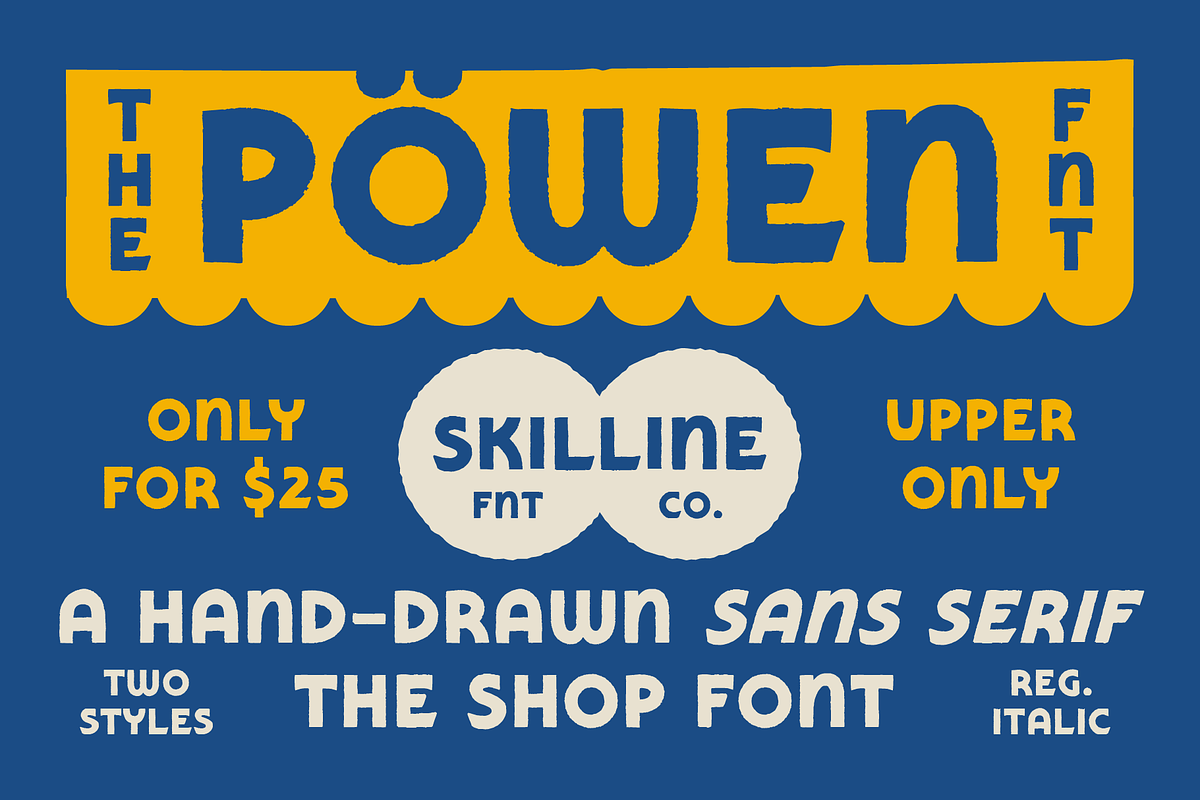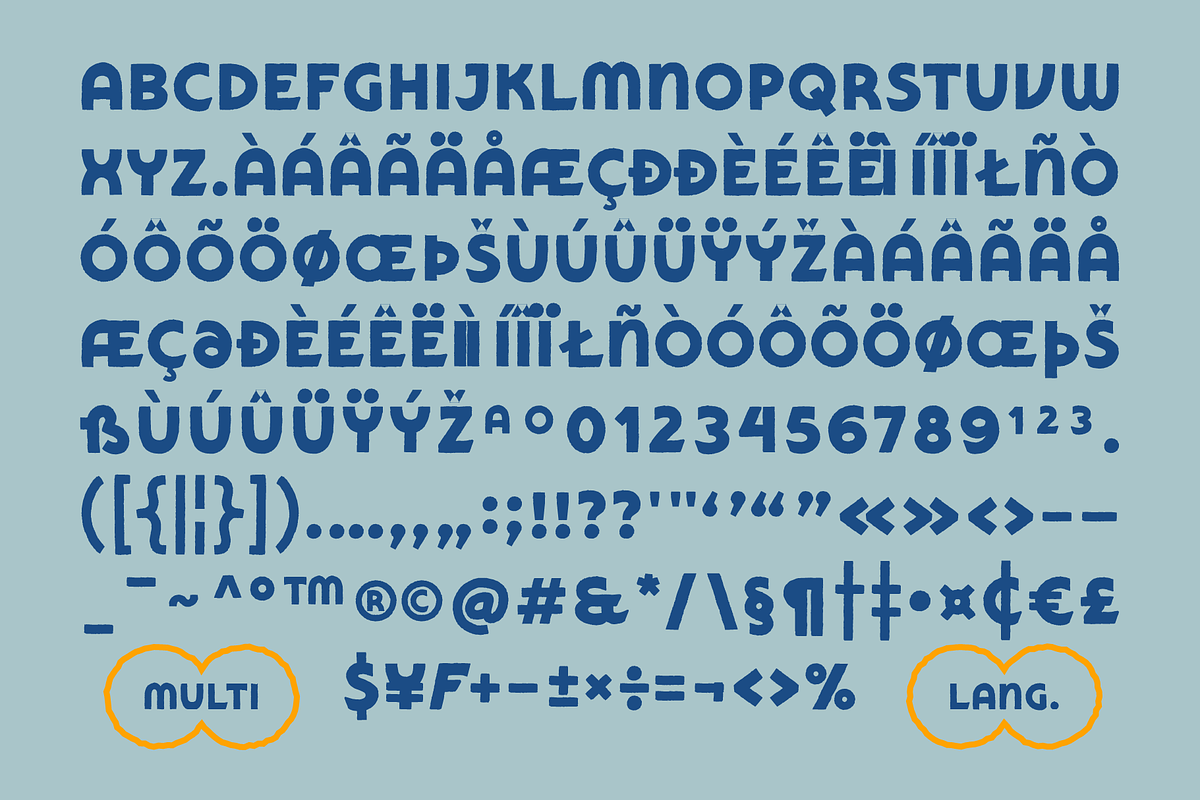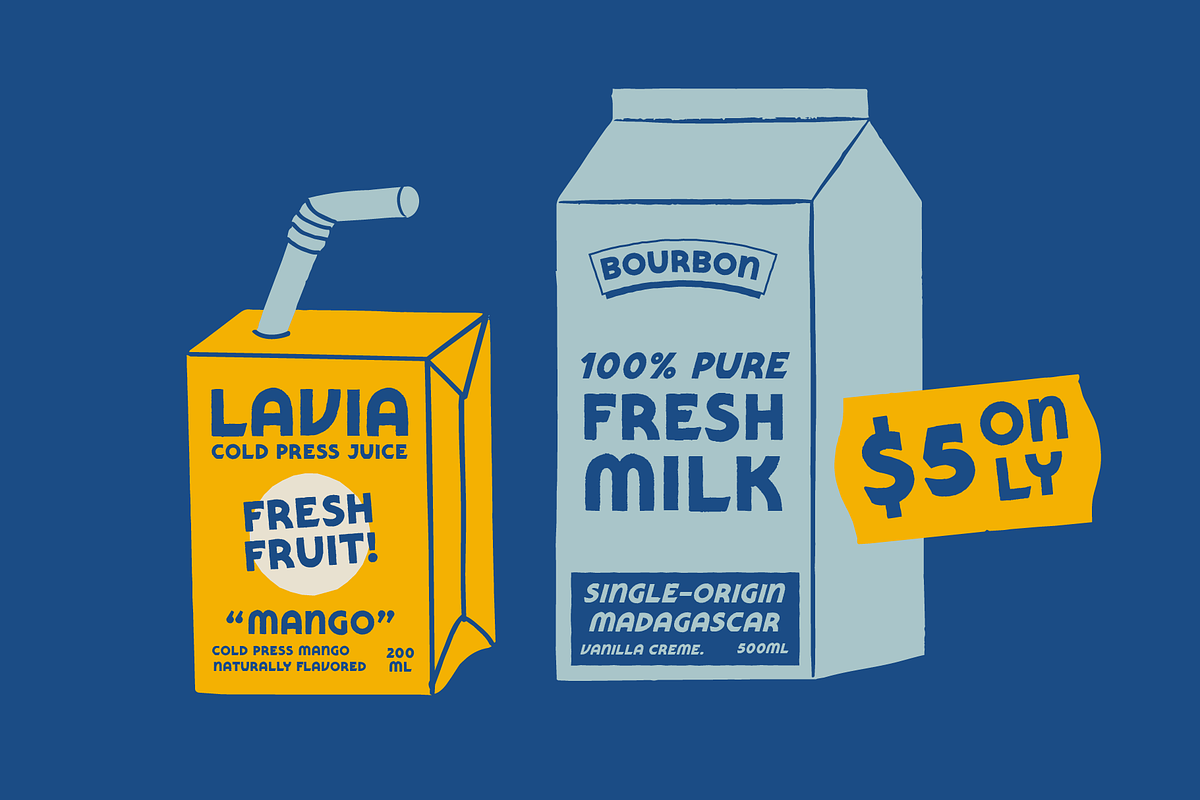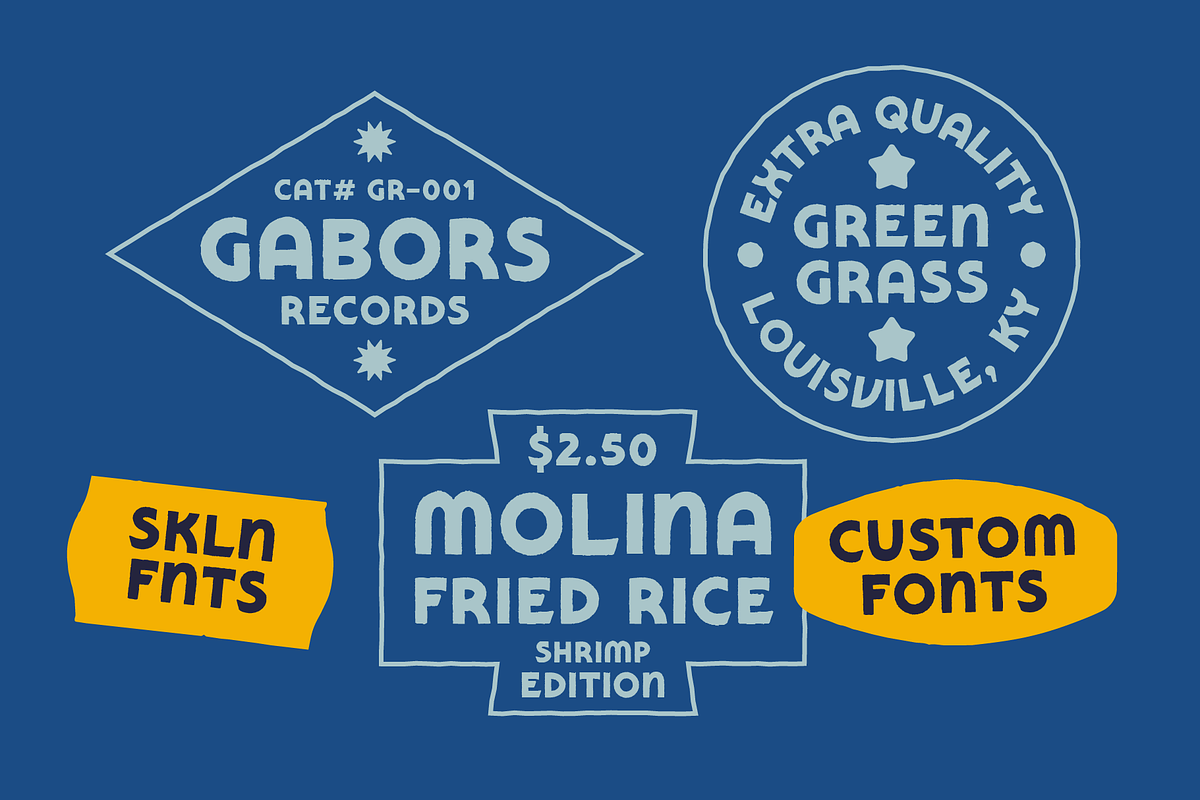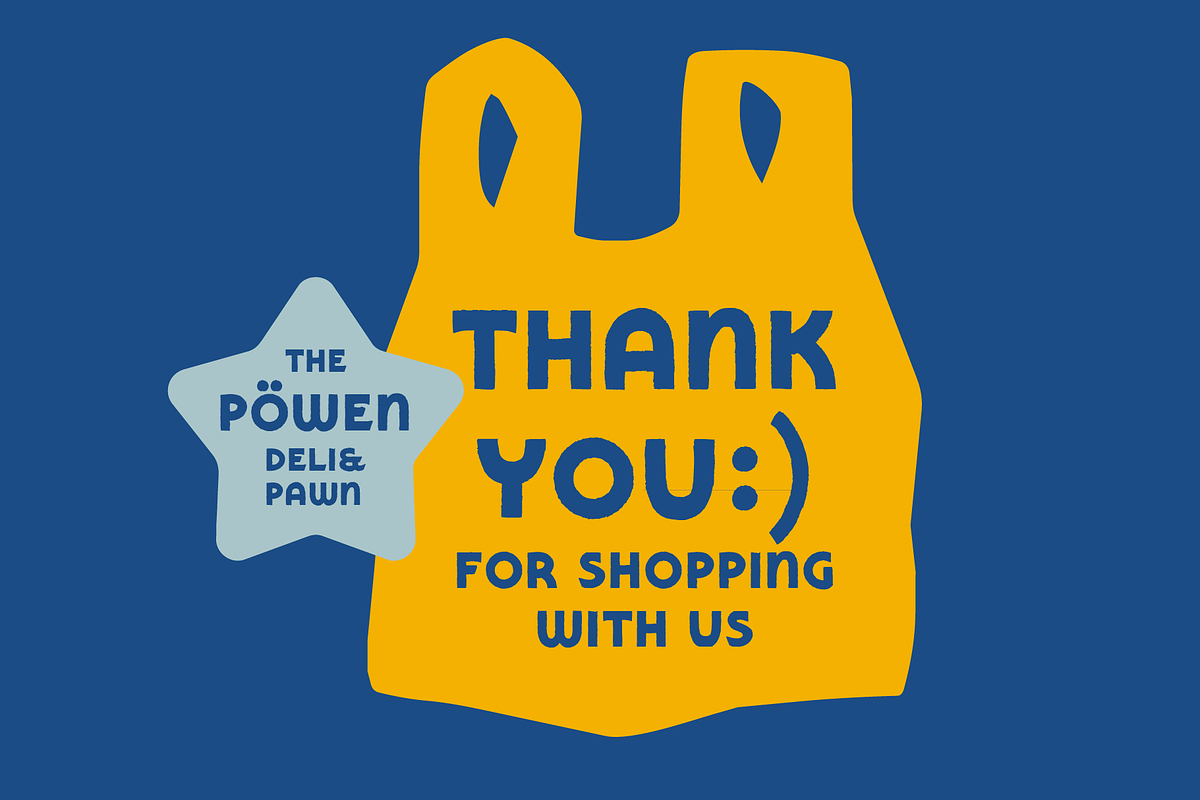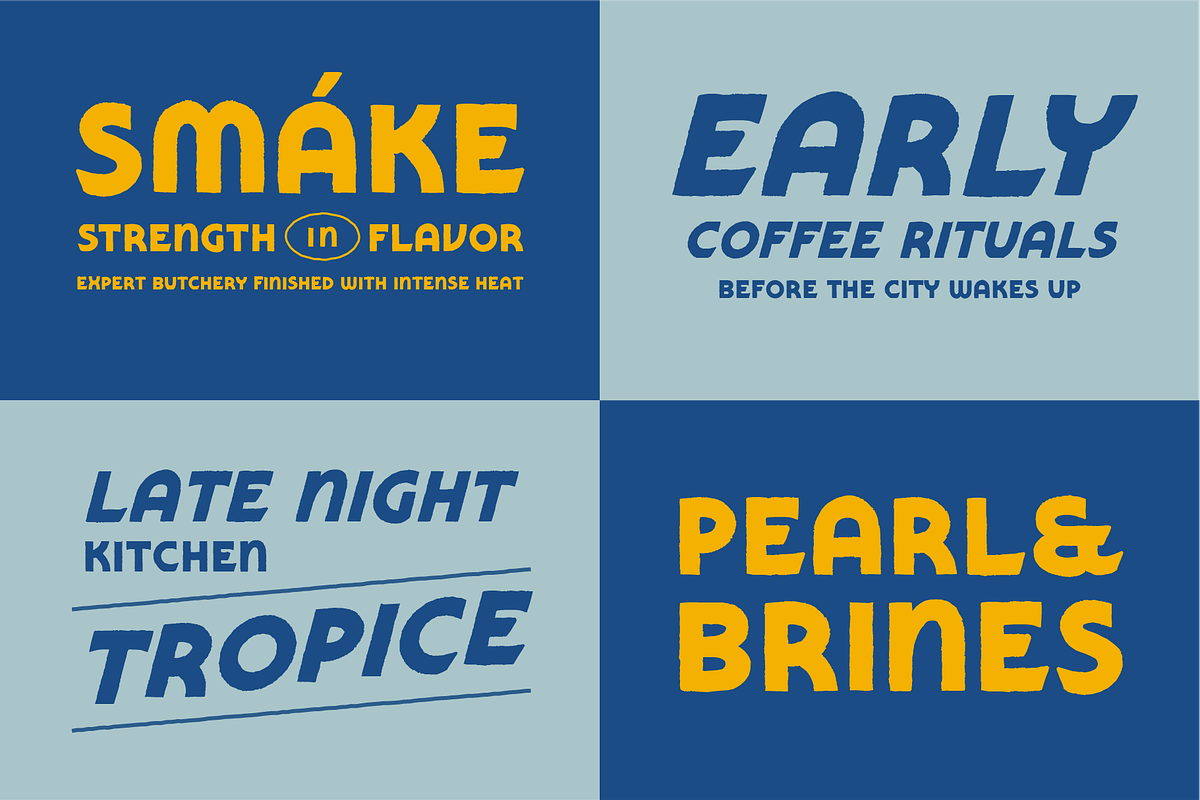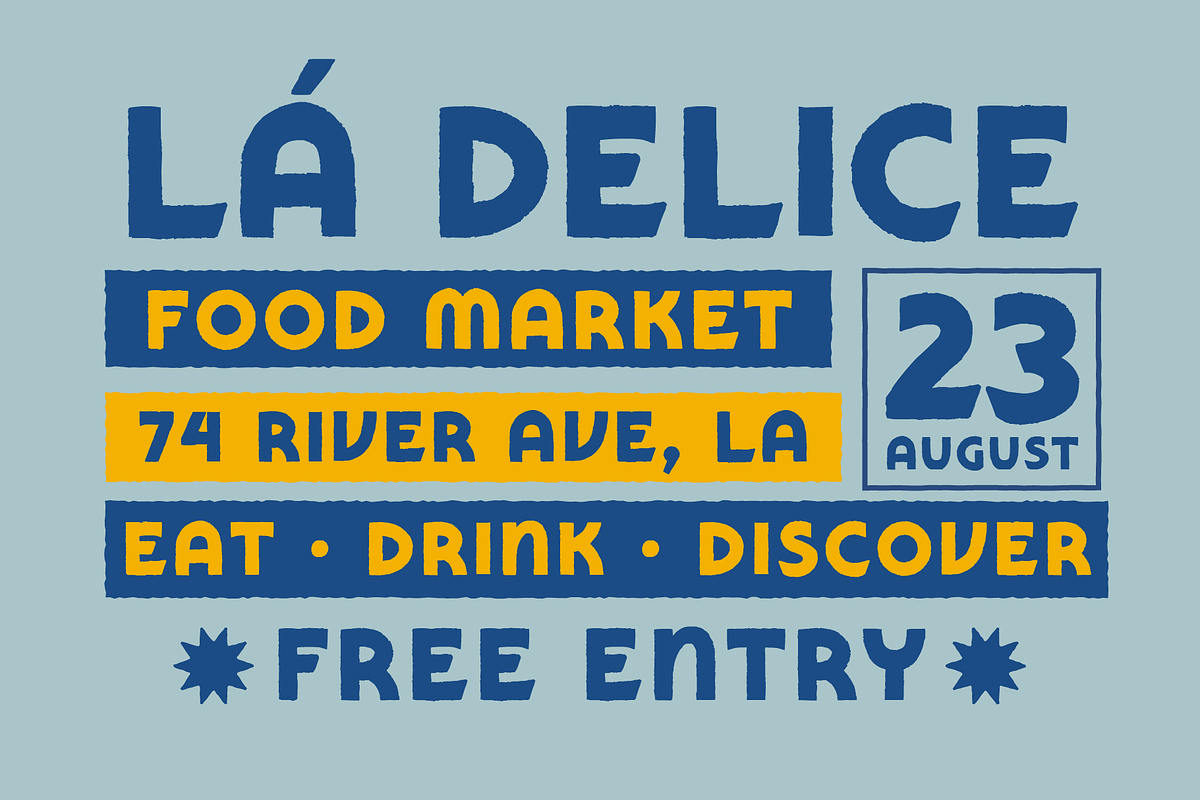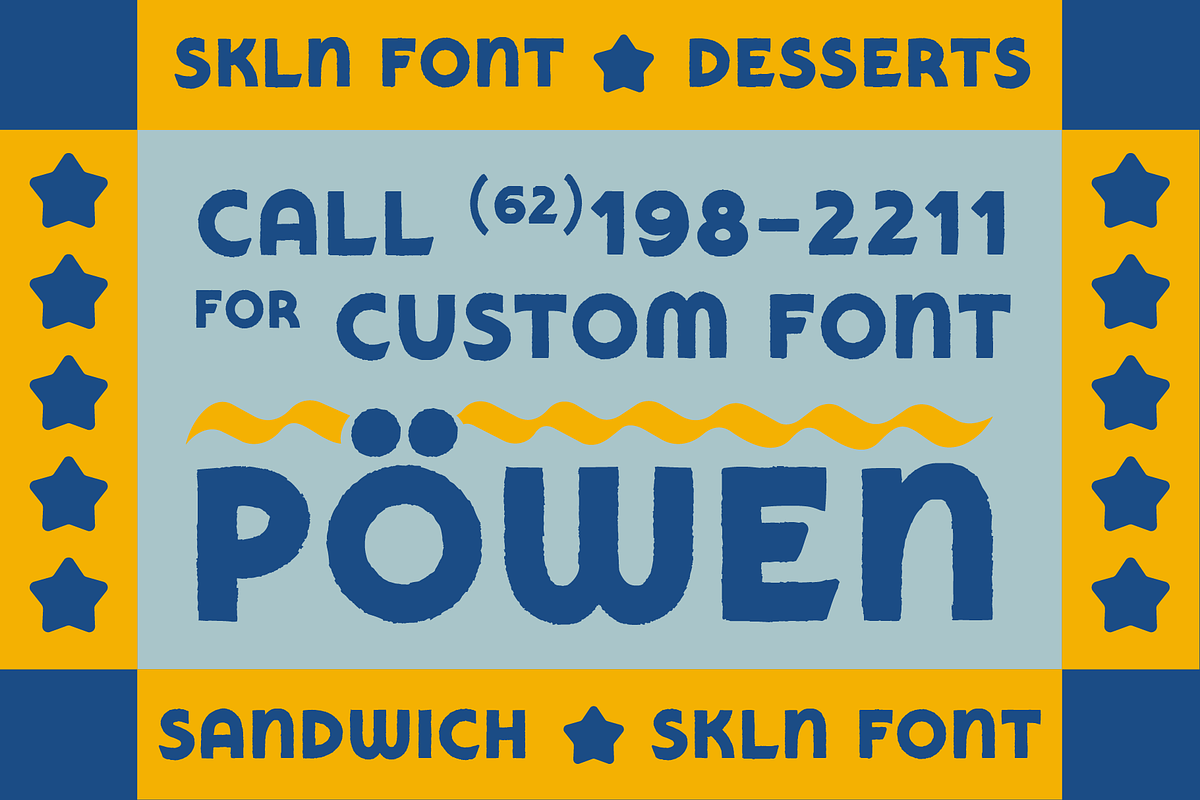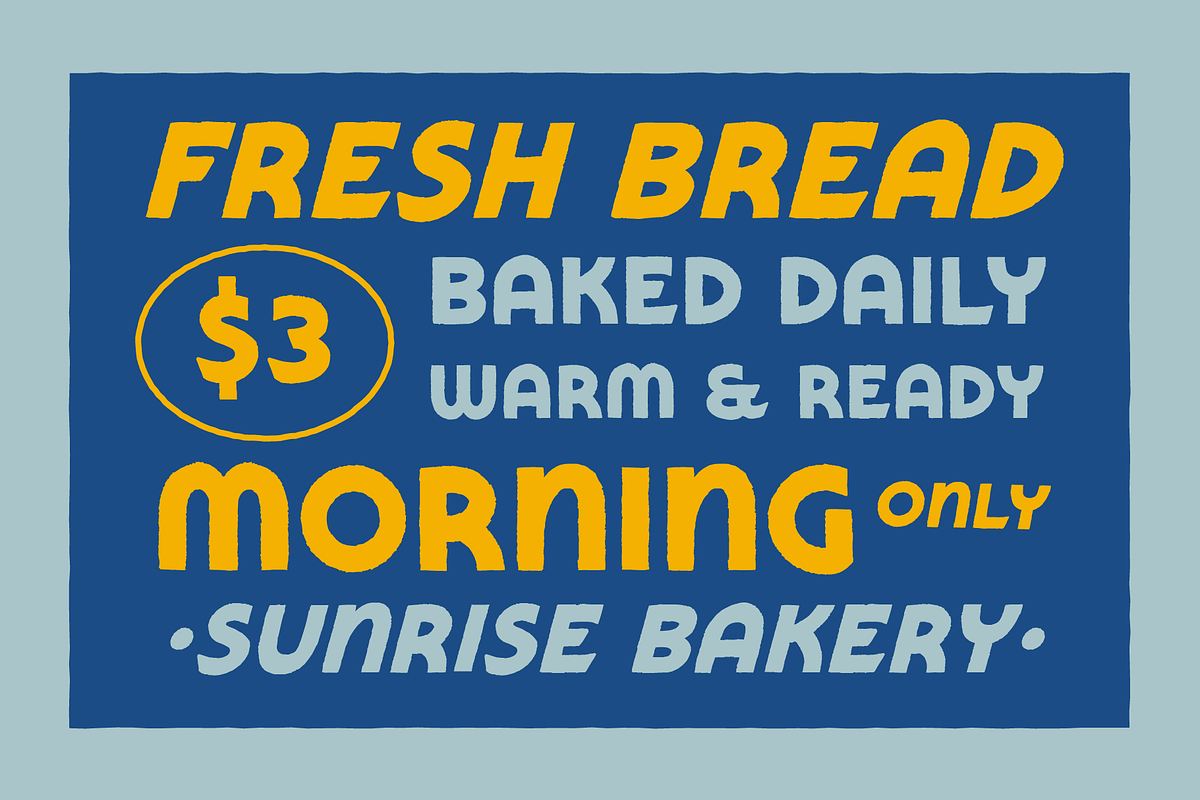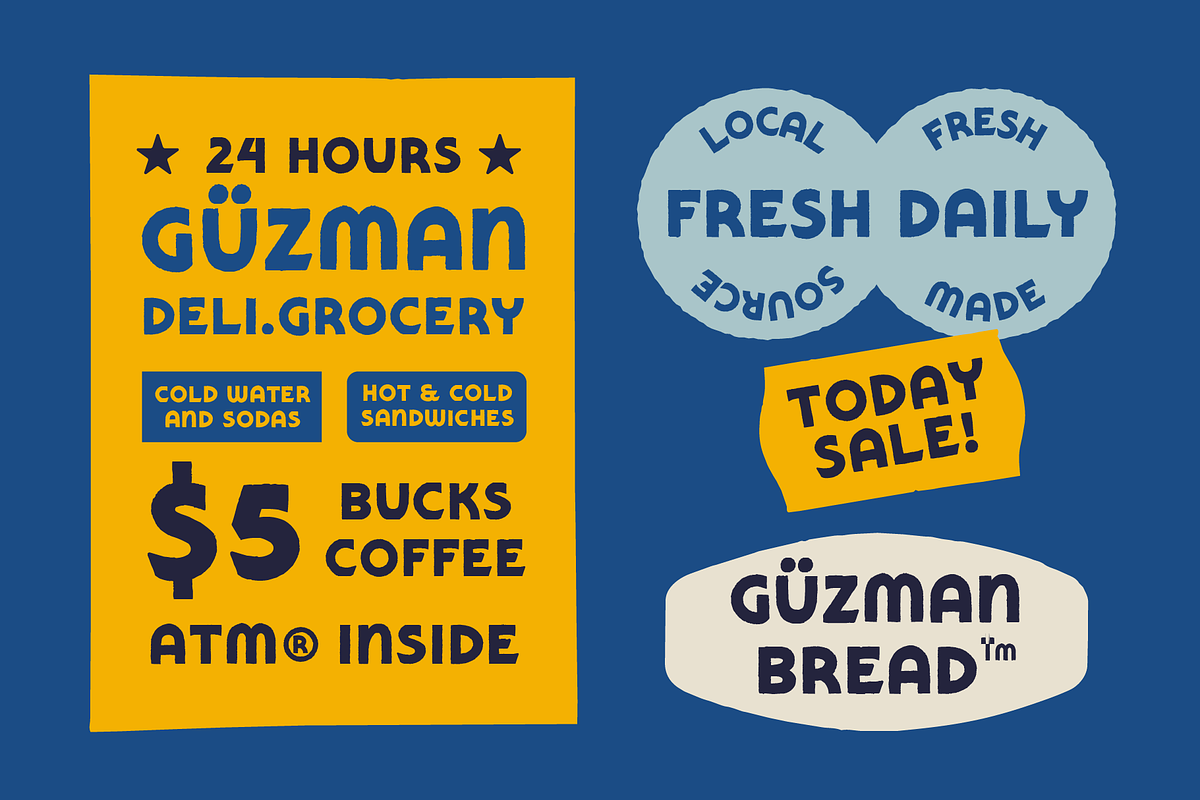
SFC Powen
SFC Powen is a bold hand-drawn sans-serif display typeface inspired by neighborhood grocery stores, vintage deli signage, market packaging, and traditional retail graphics. Featuring organic letterforms, subtle imperfections, and handcrafted details, Powen captures the authentic charm of classic shop-made typography while maintaining excellent readability and visual impact. Available in Regular and Italic styles, this typeface offers the flexibility to create playful branding systems, nostalgic packaging designs, and eye-catching promotional materials while preserving a warm, approachable, and distinctive visual character.
Ideal Applications for Powen Typeface
• Grocery store branding and visual identities • Food market and deli packaging design • Bakery and café branding projects • Farmers market and artisan product labels • Restaurant menus and promotional graphics • Vintage-inspired retail branding • Product packaging and labeling systems • Posters, advertising, and merchandise design